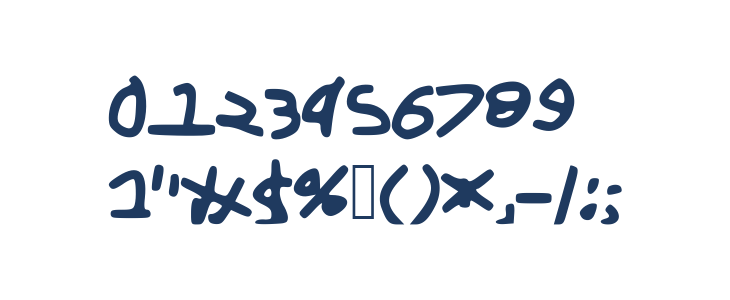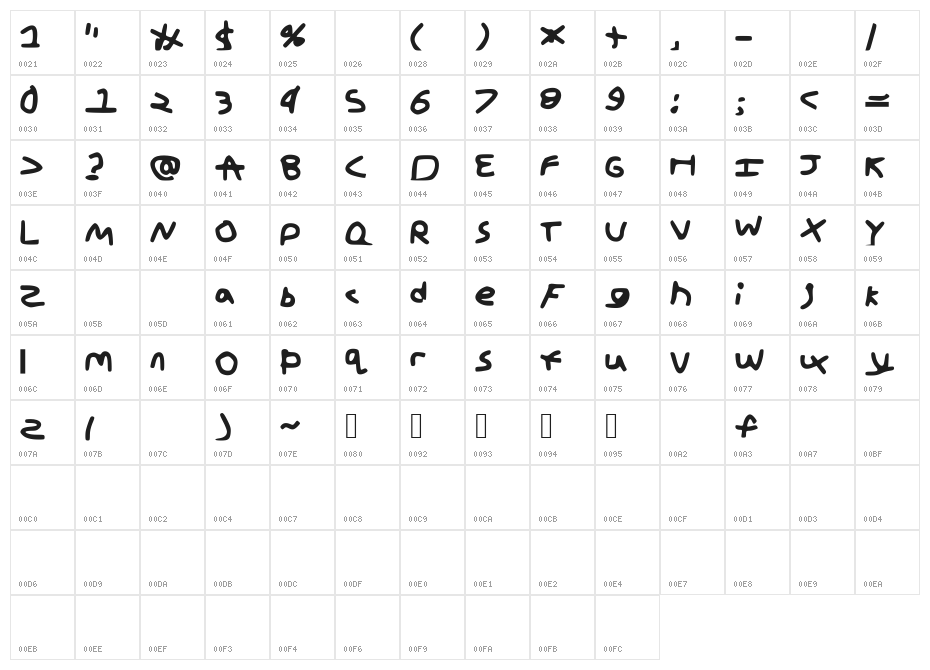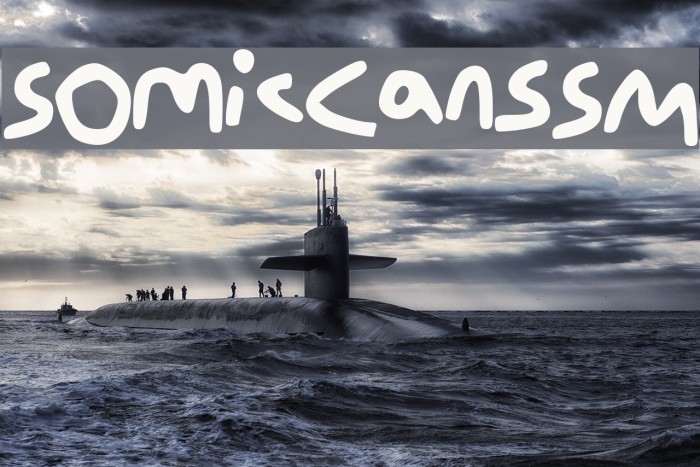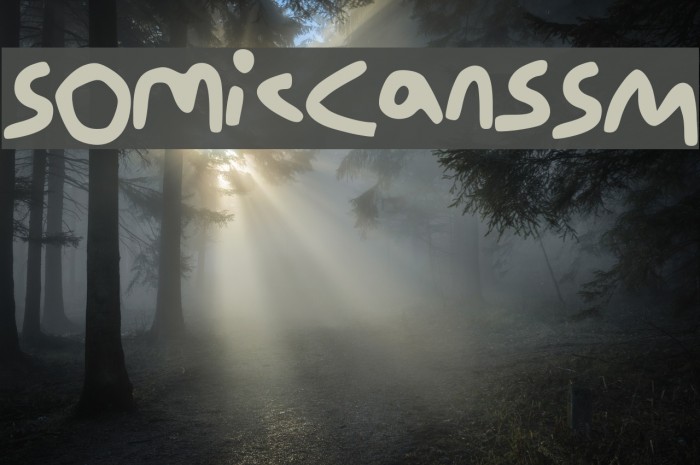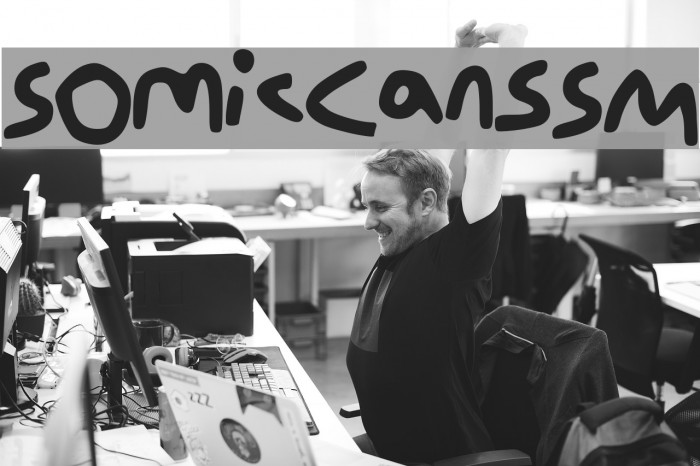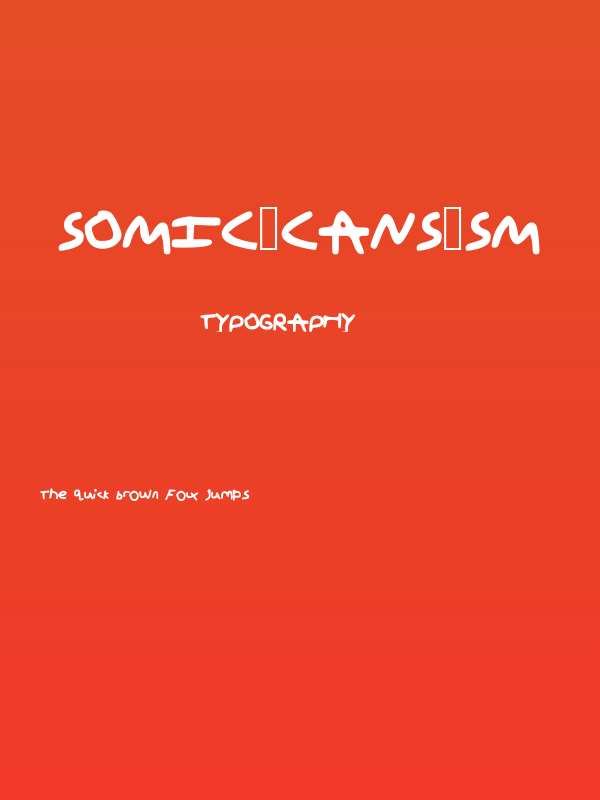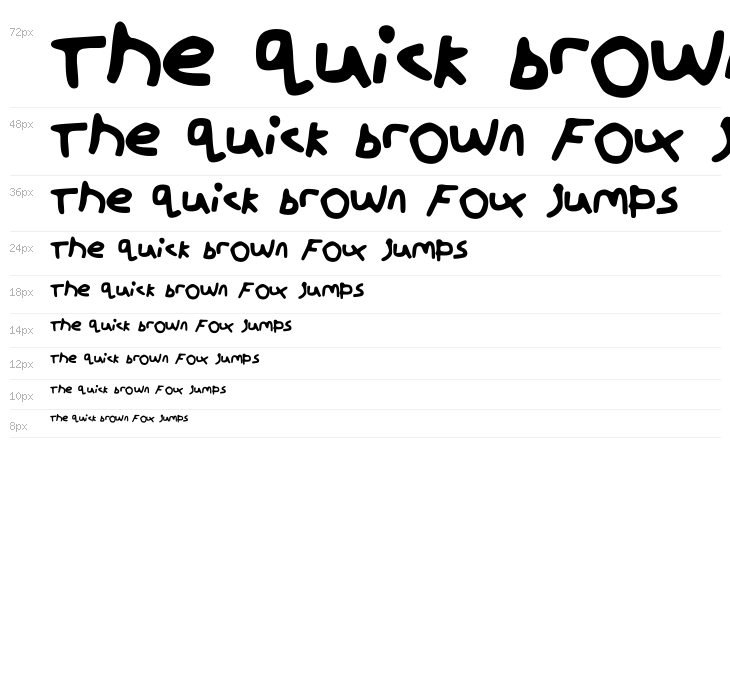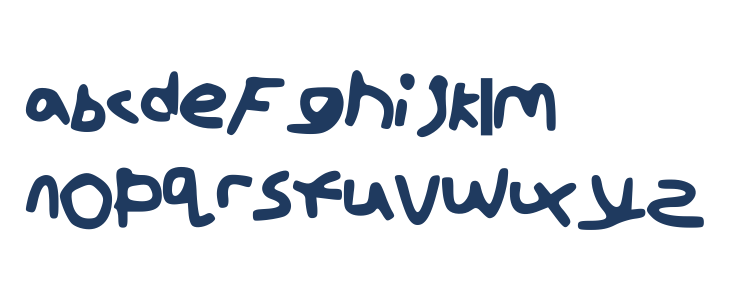
Somic_Cans_SM Font
Somic_Cans_SM Description
This playful and energetic font features bold, rounded characters with a handwritten style. The letters have a casual, informal appearance, with varying stroke widths that add a dynamic feel. The uppercase and lowercase letters maintain a consistent flow, while the numbers and special characters complement the overall design. The font's unique character shapes and slightly irregular lines give it a friendly and approachable look, making it suitable for creative and fun projects.